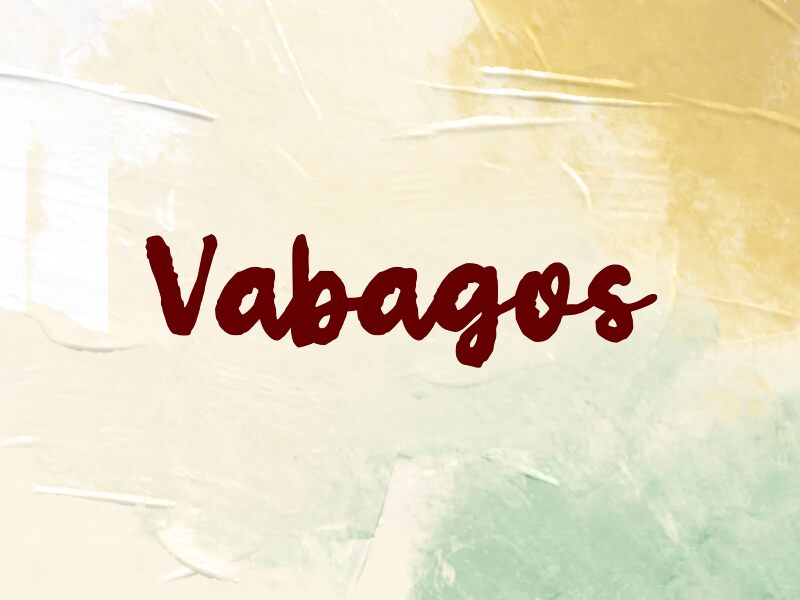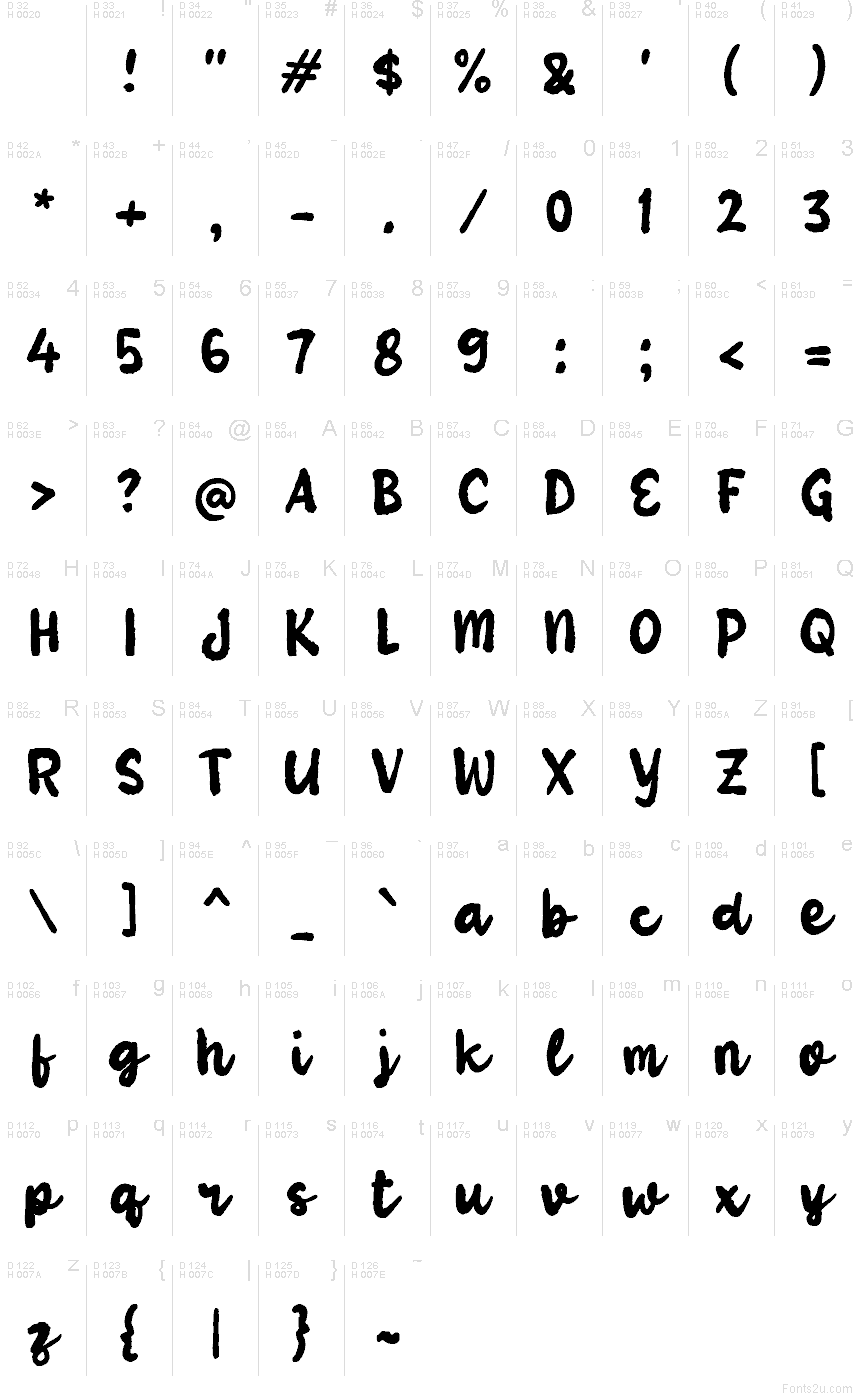
Vabagos
Vabagos font by wepfont.com is a free brush script typeface with the energy of thick, inky strokes painted in one confident motion. Its letters sweep and loop into each other with a casual, hand-lettered flow, while the slightly rough edges keep it feeling honest and tactile rather than polished and plastic. The bold weight gives your words real presence, as if they were just swiped onto a poster with a loaded marker.
Using Vabagos, you can give punch to brand marks, café menus, merch graphics, Instagram quotes, book covers, and bold event posters that need to feel personal and handcrafted. This free font shines when it’s set large and given room to breathe, letting the brush texture really show. For a simple pairing, match Vabagos with a clean, neutral sans serif for body text to balance its expressive, painted character.